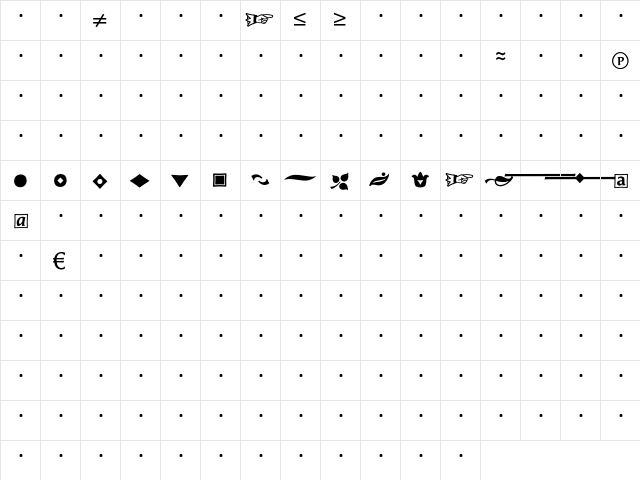
Angie RegularExpert
Design Context for Angie Typeface
Angie takes a measured approach to typography — its balanced proportions and neutral character make it a reliable workhorse for both digital and print work.